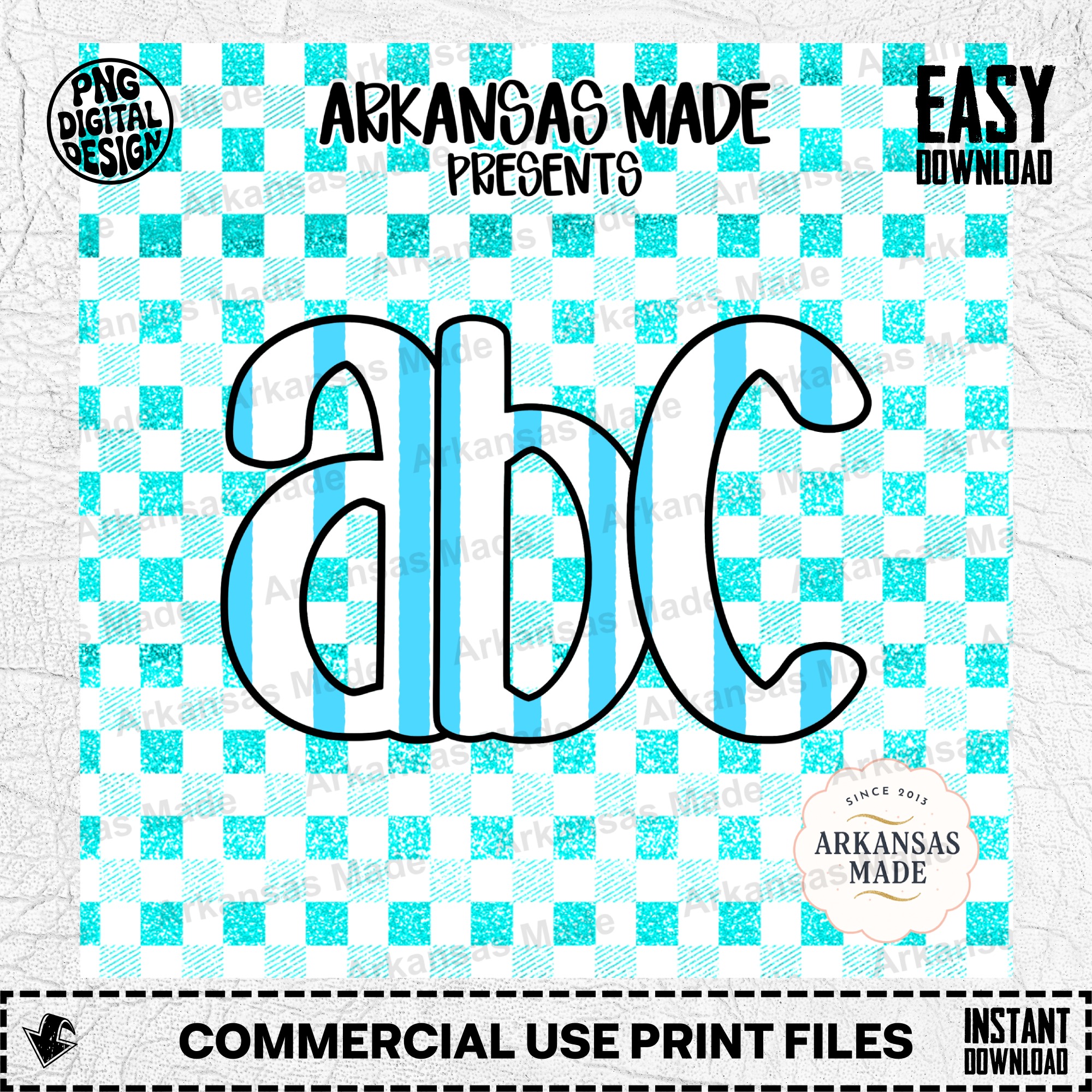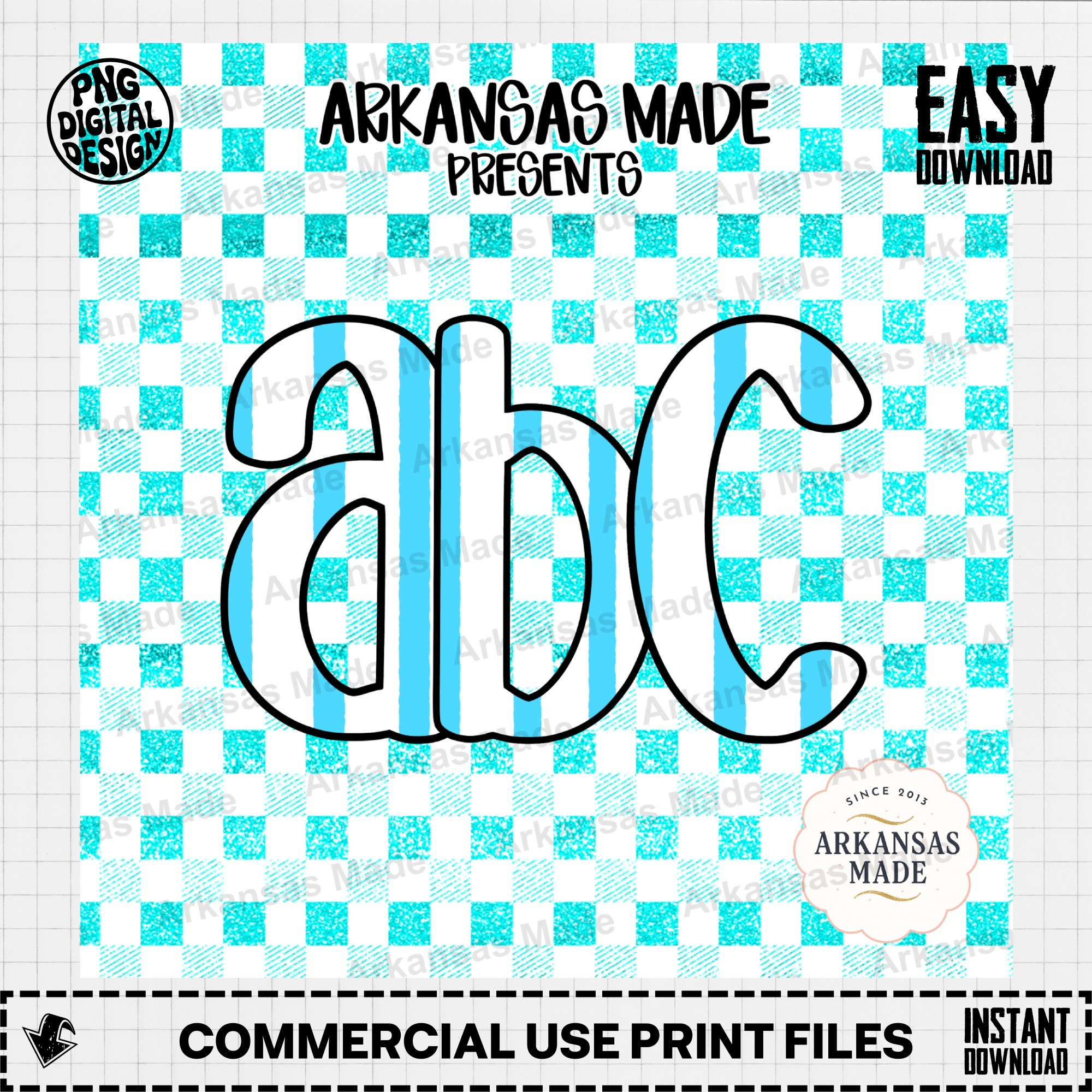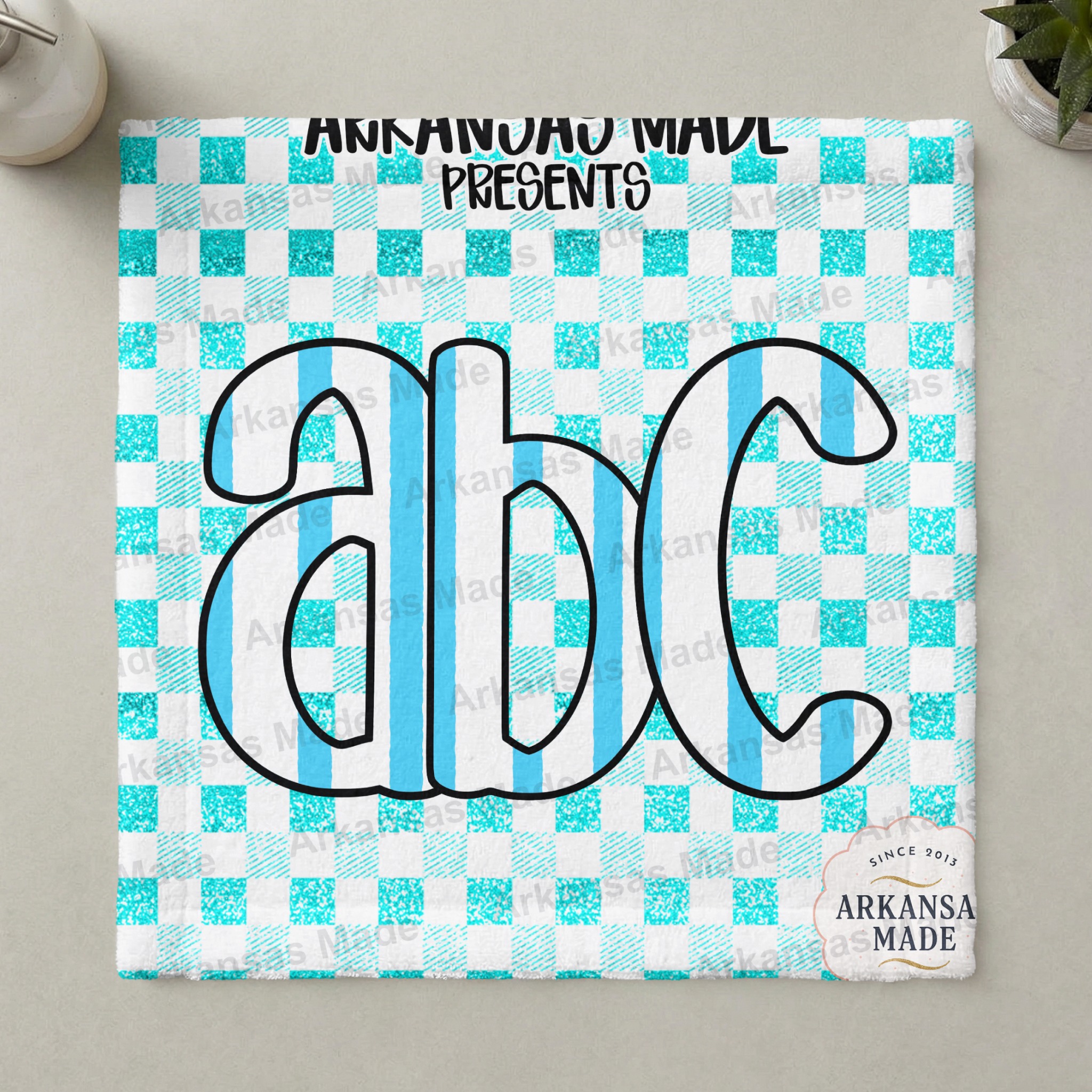
Dive into DIY with this vibrant Aqua Blue Striped Glitter Alpha Set Digital Download, featuring a full alphabet of PNG letters perfect for all your crafting needs. This cheerful and preppy alphabet clipart collection is ideal for creating personalized gifts, nursery decor, unique apparel, or engaging teacher resources. Its playful striped and faux glitter textures make it perfect for summer themes, baby showers, or adding a bright touch to any creative project. Empower your inner crafter or designer to make stunning, custom items that truly stand out.